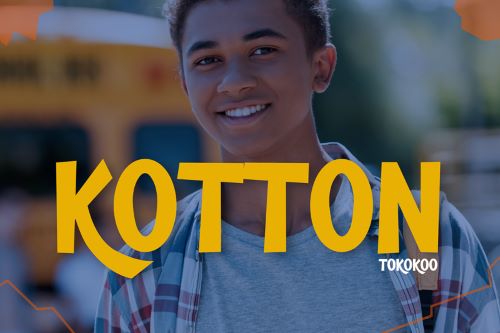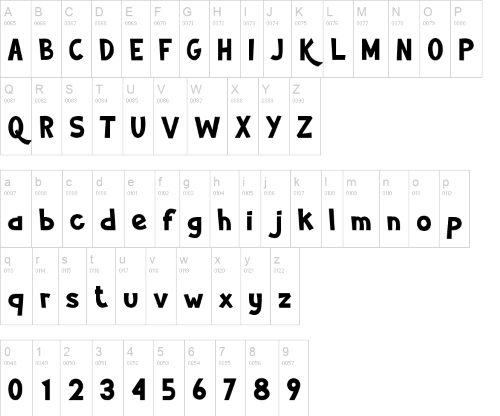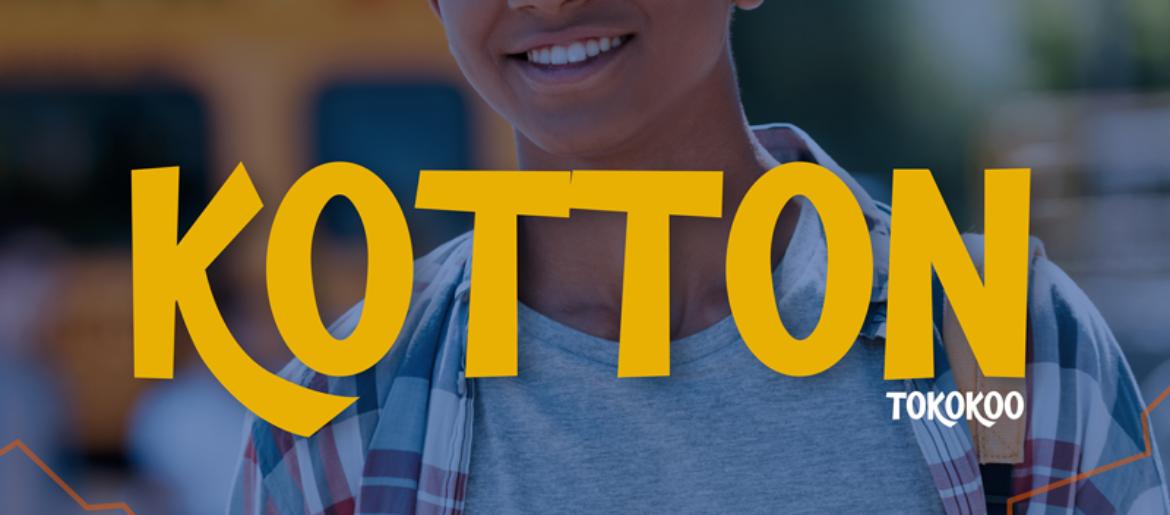
Kotton Font
Kotton Font is a bold, playful display typeface with soft, rounded letterforms that create a friendly and approachable look. Its thick strokes and casual character make it ideal for logos, packaging, posters, children’s designs, and creative branding. Kotton adds warmth, fun, and personality to any visual project.